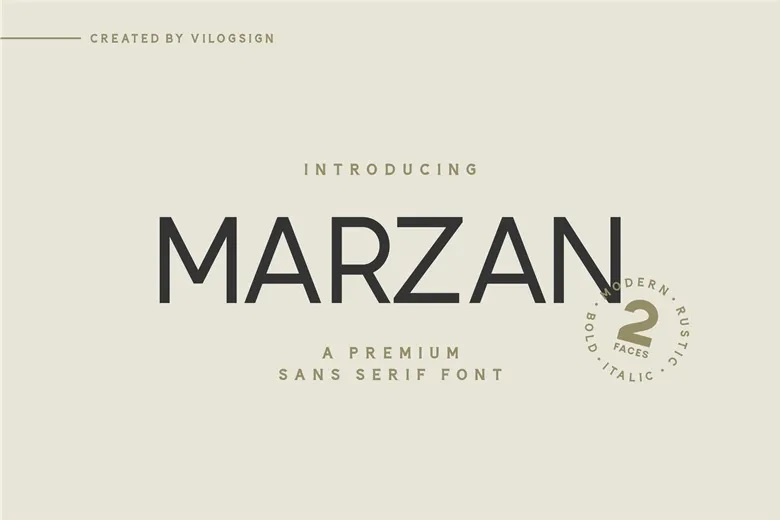
Marzan Font Family
Marzan Font
Marzan is a premium font that is sans serif and contains textures for that vintage look. It is the perfect font to apply especially to branding and other kinds of formal use such as labels, logos, magazines, books, packaging, clothes, beauty products, papers, novels, labels, or any sort of advertising use.
Marzan Sans Serif Font Family